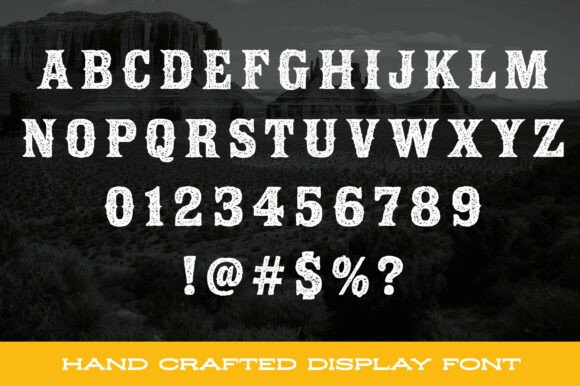
Rustbrand is a bold distressed Old West-style font that looks like it’s been seared into wood and weathered by decades of dust and grit. Its angular slab serifs and rough-hewn texture carry the spirit of frontier signage, saloon doors, and cattle brands burned into leather. Every letter is rugged, scarred, and imperfect, giving it an authentic frontier toughness perfect for posters, logos, or anything that needs a wild western punch.
Rustbrand Font